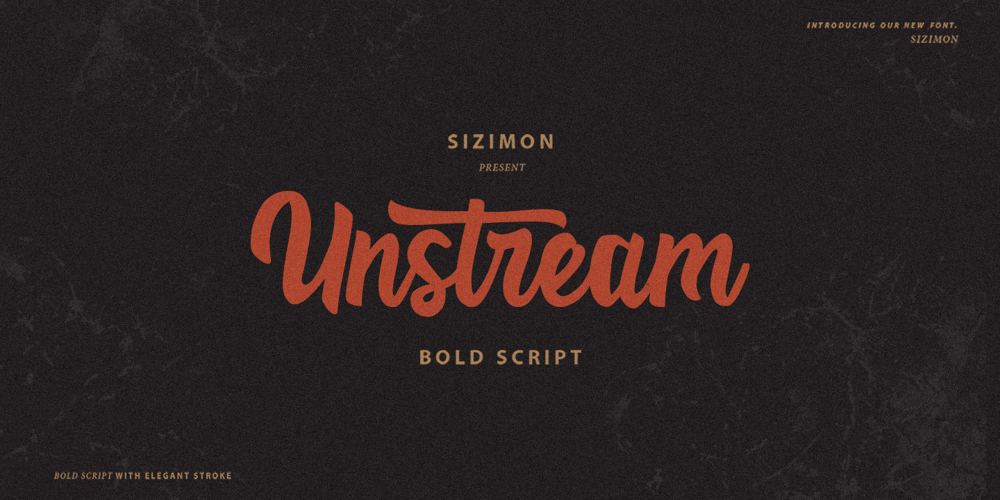
Unstream
Unstream font
Unstream Font Family was designed by Faisal Tanjung and published by sizimon. Unstream contains 2 styles and family package options. Unstream Script perfect for branding, logotype, website headers, fashion design and any more. It contains a full set of lower & uppercase letters, a large range of punctuation, numerals, and multilingual support.